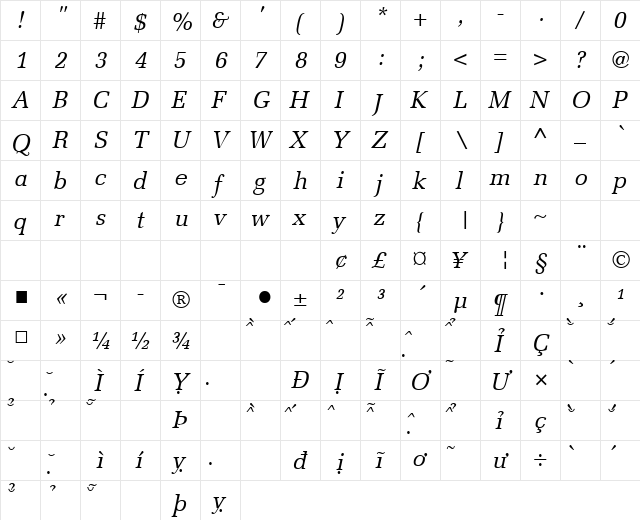
VNI-Meli Italic
Design Context for VNI-Meli Typeface
VNI-Meli is a composed and adaptable typeface that performs quietly and consistently across a wide range of design contexts. The dynamic lean of this cut emphasises speed and emphasis in any layout.
Pro Tip: Try VNI-Meli for annotation and caption copy alongside an upright companion — the contrast in angle creates a dynamic but ordered typographic system.